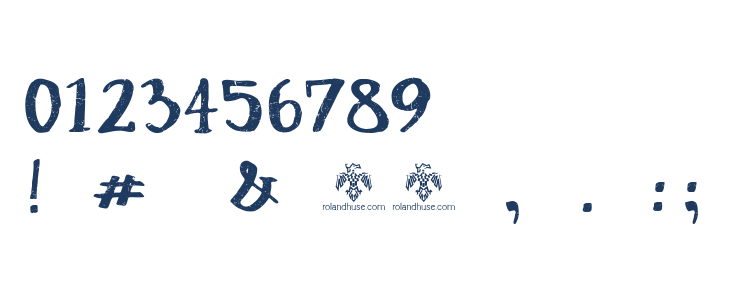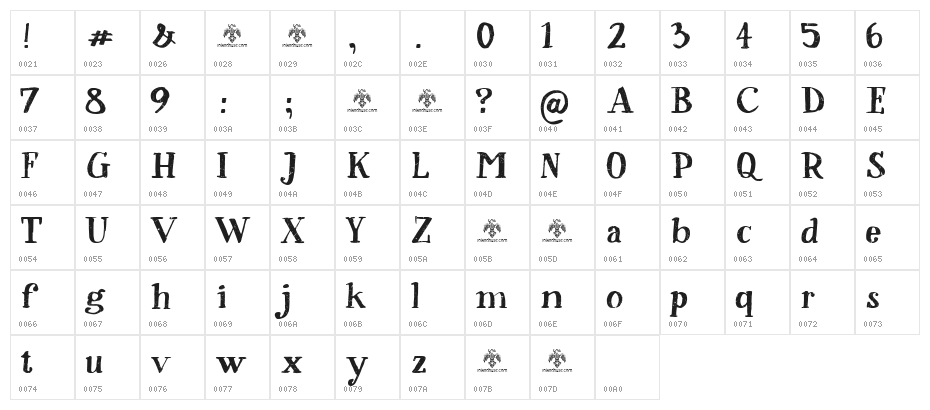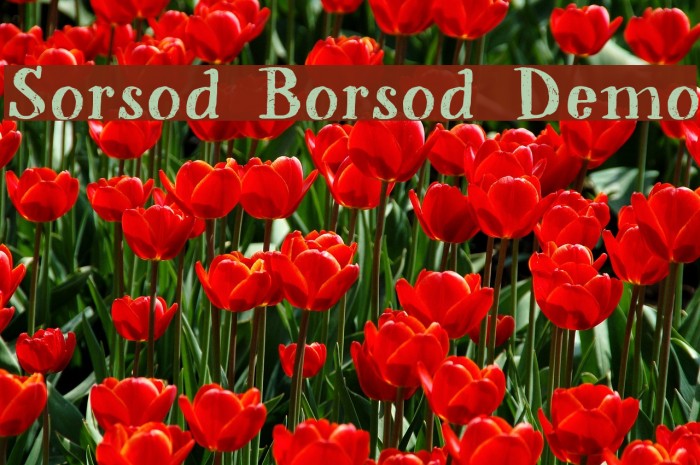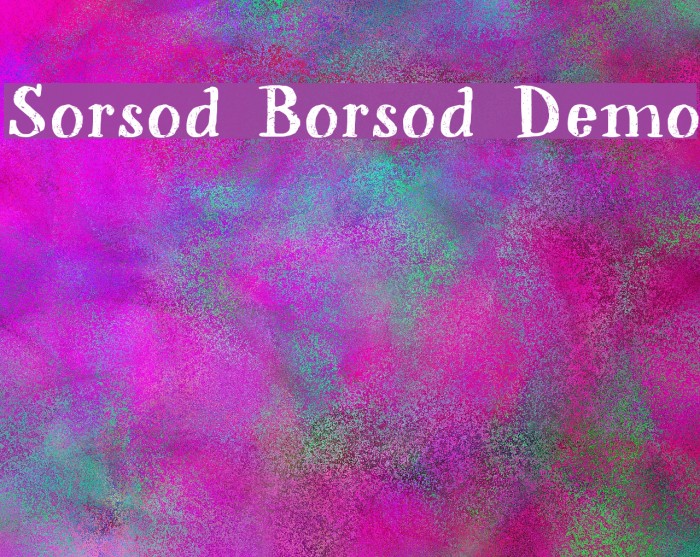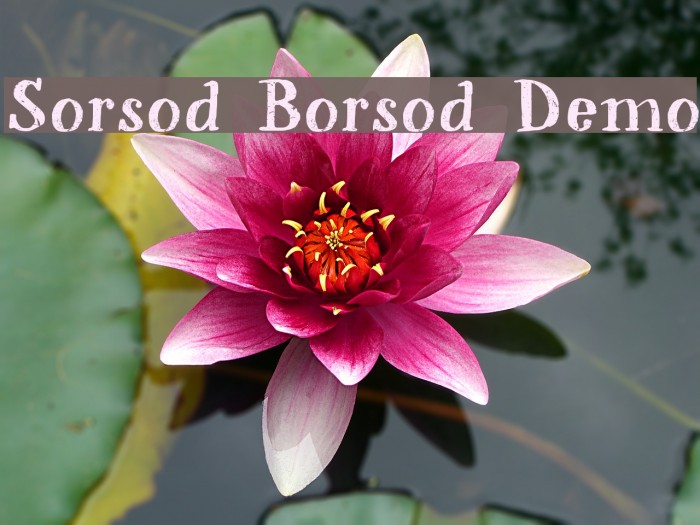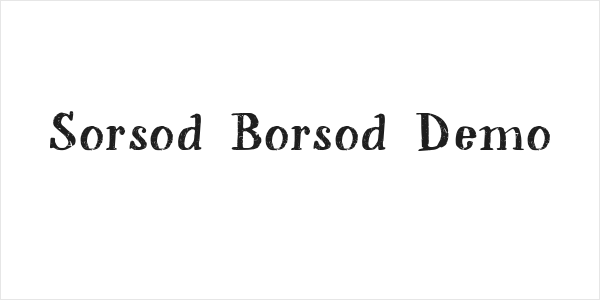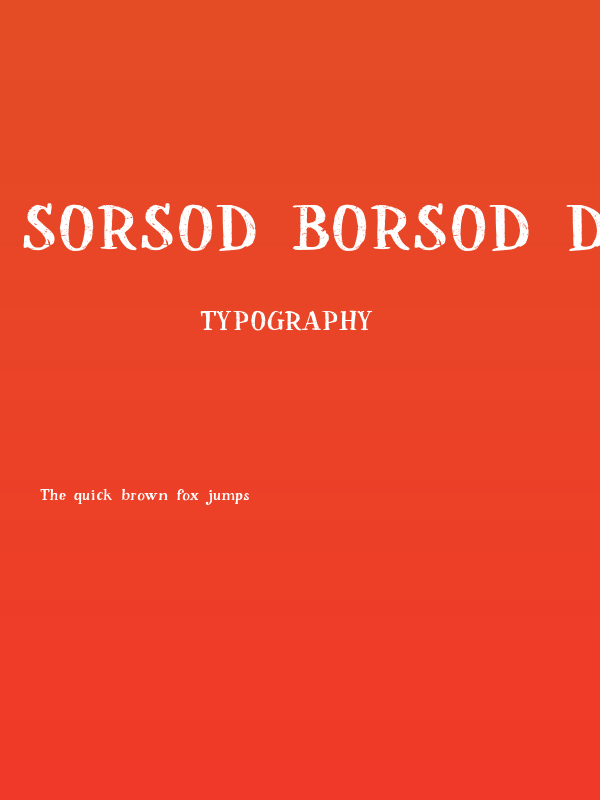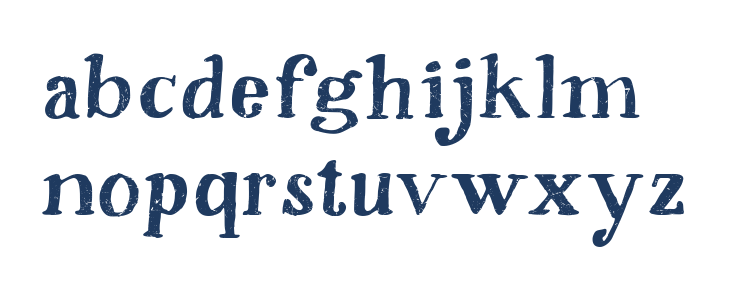
Sorsod Borsod Demo Font
Sorsod Borsod Demo Description
This font features a bold and distressed style, giving it a vintage and rugged appearance. The uppercase letters are strong and commanding, while the lowercase letters maintain a consistent style with a slightly more playful touch. The numbers are bold and clear, matching the overall aesthetic. Special characters are included, maintaining the distressed look that adds character and uniqueness. The font's texture suggests a hand-printed or stamped effect, making it ideal for projects that require a rustic or handcrafted feel.
| Use Case | Logos, Posters, Branding |
| Proposed Projects | Ideal for branding, packaging, posters, and any design that requires a vintage or rustic touch. |